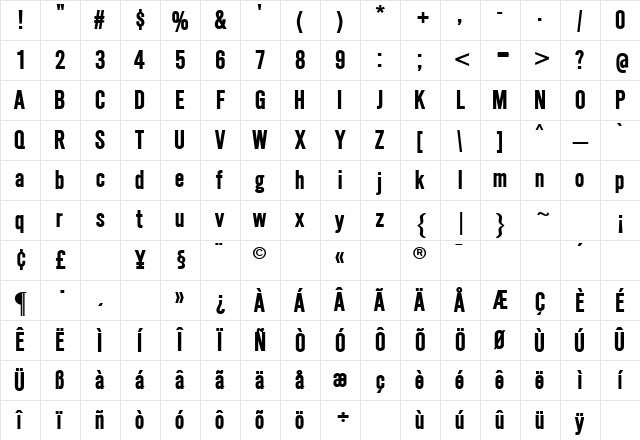
Complete SimpleType Bold glyph index. Displaying only characters natively supported by SimpleType Bold font.
SimpleType is a composed and adaptable typeface that performs quietly and consistently across a wide range of design contexts. Its bold stroke weight gives it real presence on the page.